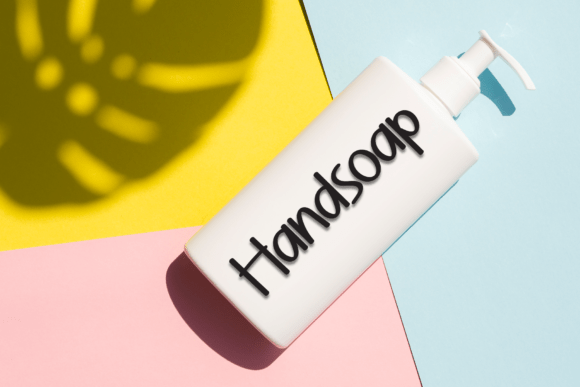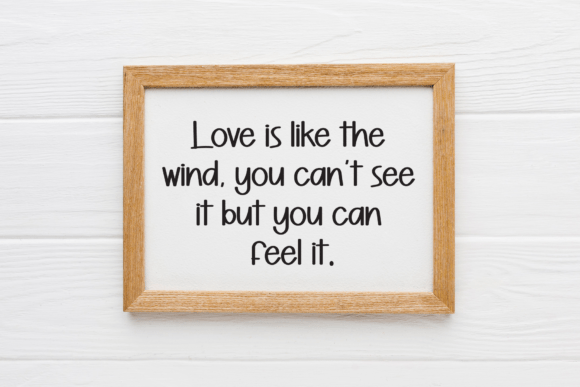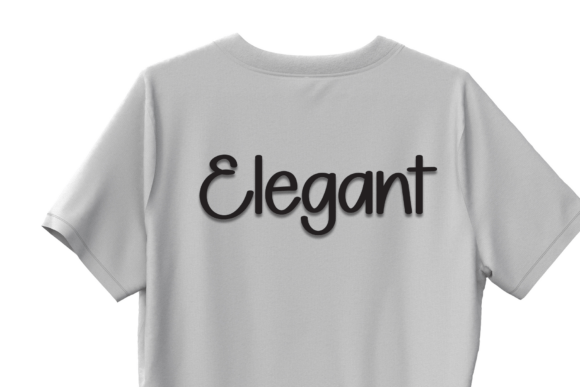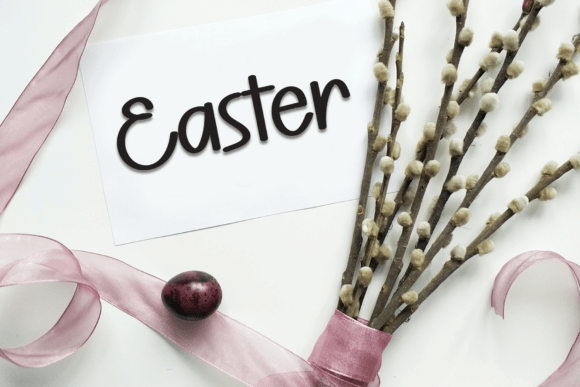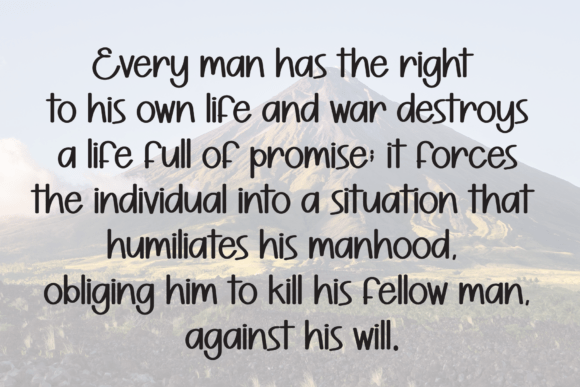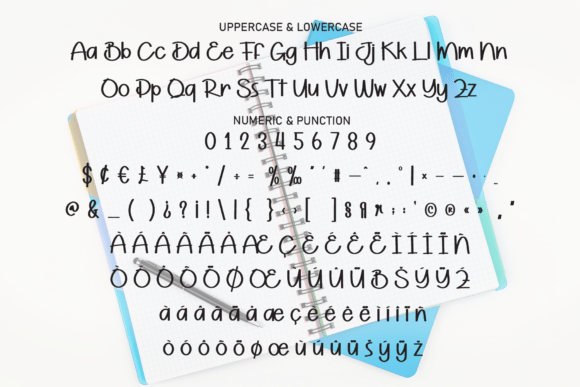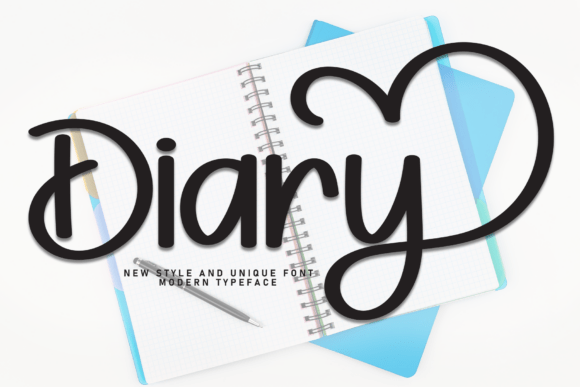
The Charm of Diary Font: Elevate Your Designs with a Personal Touch
Are you looking for a font that can add a personal, stylish touch to your designs? Look no further than the Diary Font. This script handwritten font is designed to bring a sense of warmth and authenticity to your projects, making it perfect for a wide range of applications. In this article, we’ll explore the features and benefits of the Diary Font, and how it can elevate your designs to the next level.
What is Diary Font?
Diary Font is a script handwritten font that is designed to mimic the charm of real handwriting. With its fluid strokes and natural flow, this font is perfect for creating designs that feel personal and authentic. Whether you’re crafting an invitation, a greeting card, or a social media graphic, Diary Font is the perfect choice.
Key Features of Diary Font
- Fluid Strokes: Diary Font features fluid strokes that give it a natural, handwritten feel.
- Natural Flow: The font’s natural flow makes it perfect for creating designs that feel effortless and authentic.
- Perfect for Handwritten Designs: Diary Font is designed to mimic the charm of real handwriting, making it perfect for creating handwritten designs.
- Versatile: This font is versatile and can be used for a wide range of applications, from invitations to social media graphics.
Benefits of Using Diary Font
So, why should you use Diary Font in your designs? Here are just a few benefits:
- Adds a Personal Touch: Diary Font adds a personal touch to your designs, making them feel more authentic and engaging.
- Creates Emotional Connection: The font’s handwritten feel creates an emotional connection with your audience, making them more likely to engage with your design.
- Perfect for Branding: Diary Font is perfect for branding, as it adds a touch of personality and whimsy to your brand’s message.
- Easy to Read: Despite its handwritten feel, Diary Font is easy to read, making it perfect for designs that require a lot of text.
Use Cases for Diary Font
Diary Font is versatile and can be used for a wide range of applications. Here are just a few use cases:
- Invitations: Use Diary Font to create beautiful, handwritten invitations for weddings, parties, and other special events.
- Greeting Cards: Create personalized greeting cards for birthdays, holidays, and other special occasions.
- Branding: Use Diary Font to add a touch of personality to your brand’s message.
- Social Media Graphics: Create engaging social media graphics with Diary Font.
- Quotes: Use Diary Font to create beautiful, handwritten quotes that inspire and motivate.
Tips for Using Diary Font
Here are a few tips for using Diary Font in your designs:
- Pair with Other Fonts: Pair Diary Font with other fonts to create a unique and interesting design.
- Use for Headlines: Use Diary Font for headlines and titles to add a touch of personality to your design.
- Keep it Simple: Keep your design simple and clean to let Diary Font shine.
In conclusion, Diary Font is a beautiful, script handwritten font that adds a personal, stylish touch to your designs. With its fluid strokes and natural flow, it’s perfect for creating designs that feel authentic and engaging. Whether you’re crafting an invitation, a greeting card, or a social media graphic, Diary Font is the perfect choice. So why not give it a try and see how it can elevate your designs to the next level?